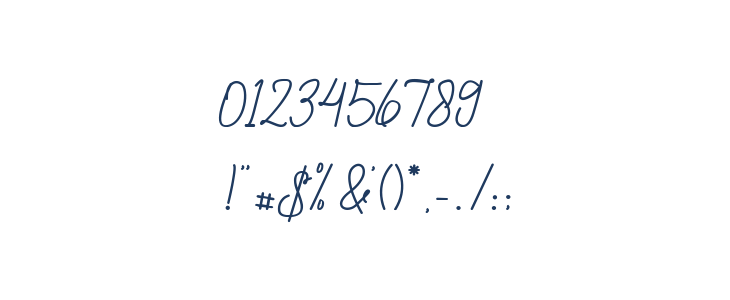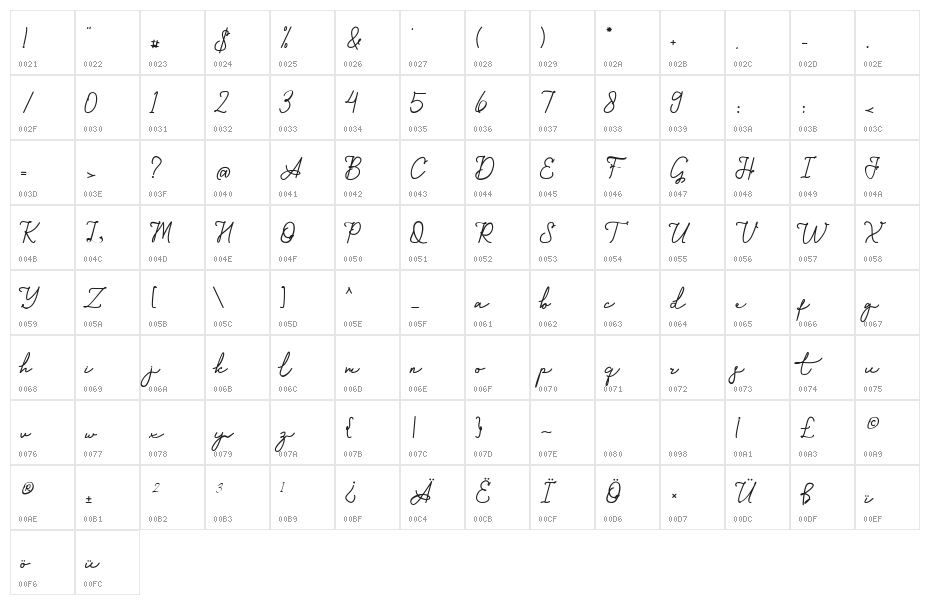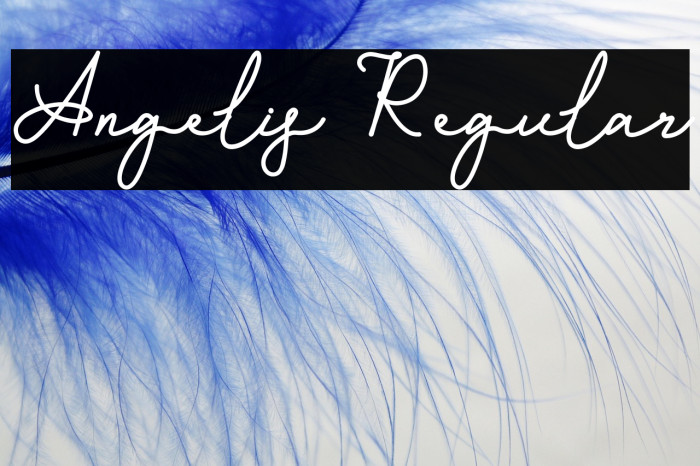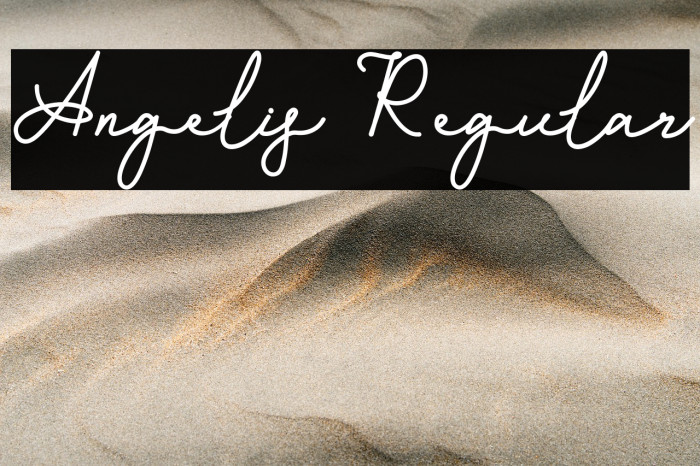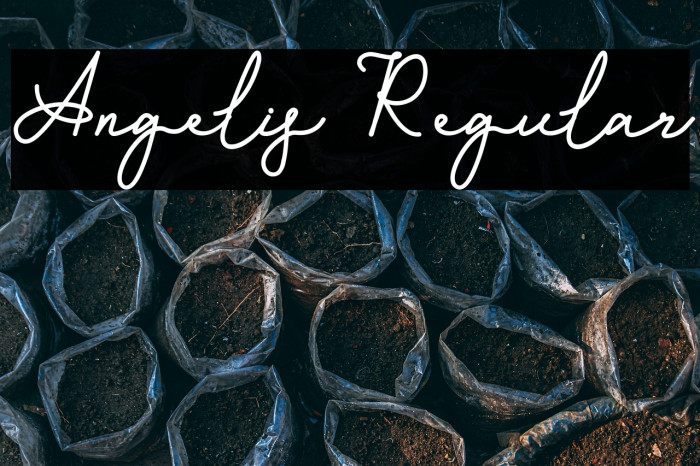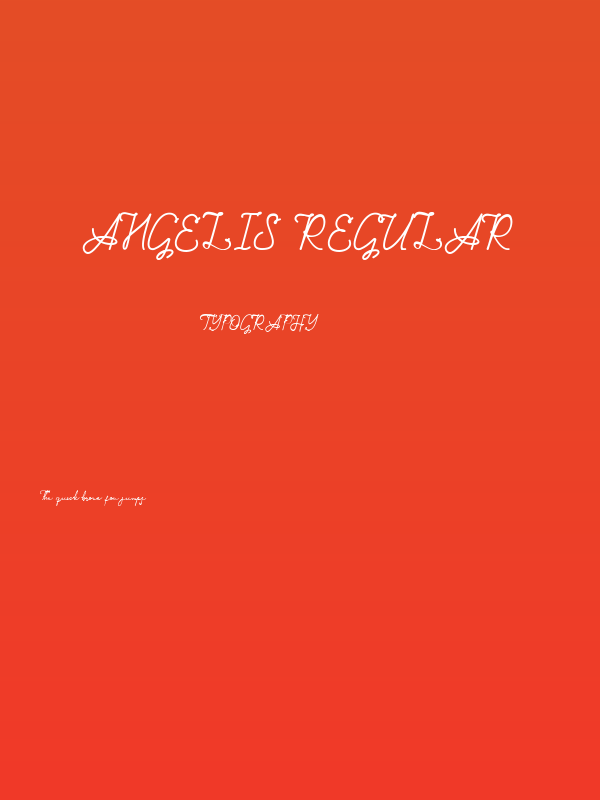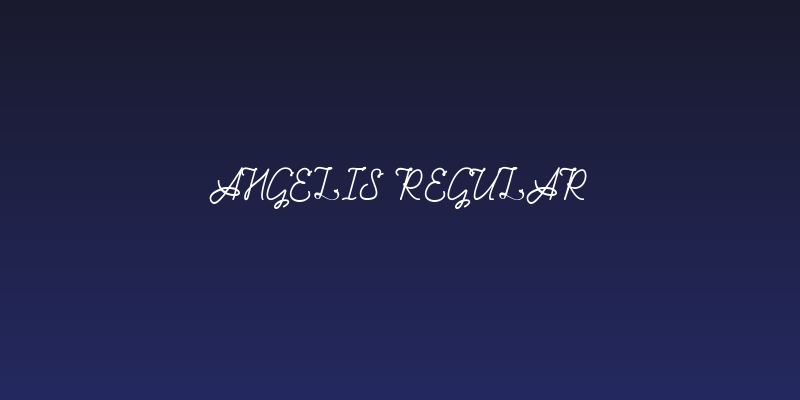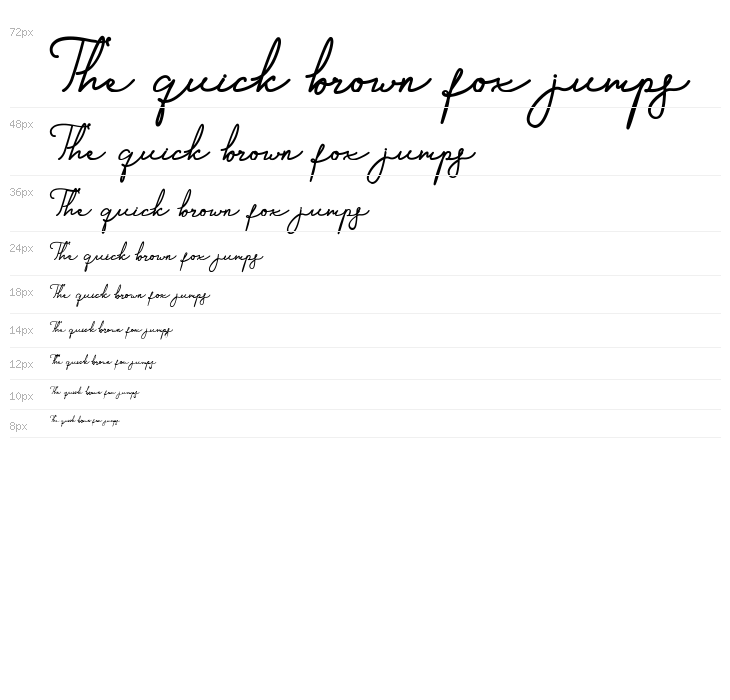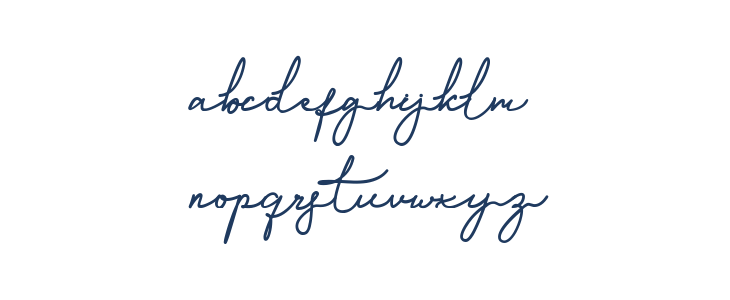
Angelis Regular Font
Angelis Regular Description
This font exudes a classic and elegant script style, characterized by its flowing, cursive letterforms. The uppercase letters are ornate, with graceful loops and swirls that add a touch of sophistication. The lowercase letters maintain a consistent flow, connecting smoothly with each other, which enhances the script's readability. The numerals are styled to match the overall cursive theme, offering a cohesive look across all characters. Special characters are designed with the same attention to detail, ensuring they blend seamlessly with the rest of the font. This font is ideal for projects that require a personal, handwritten touch, such as invitations, greeting cards, and branding materials.
| Proposed Projects | Ideal for invitations, greeting cards, and branding materials. |